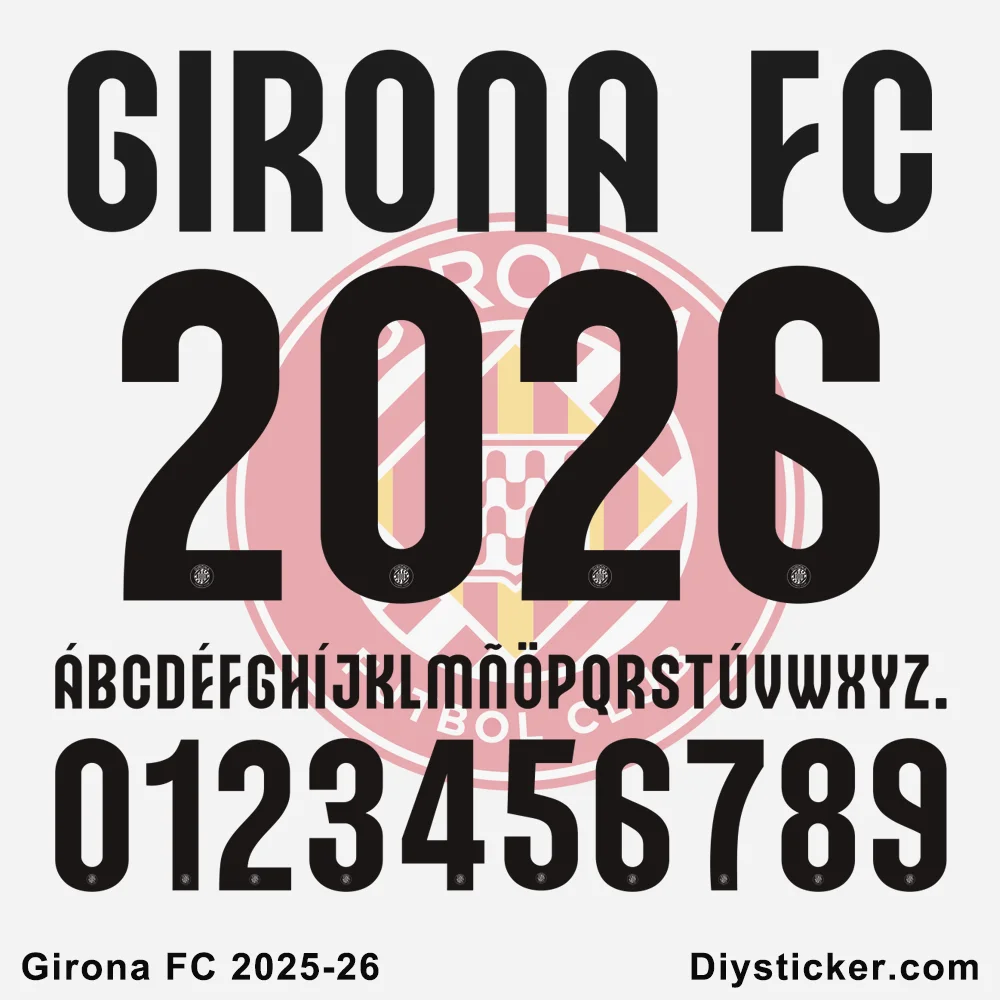
Capture the exciting spirit of one of La Liga’s rising teams with the official Girona FC 2025-26 Font. This is the authentic typeface used by the Blanquivermells on their official kits, league graphics, and all communications for the new season.